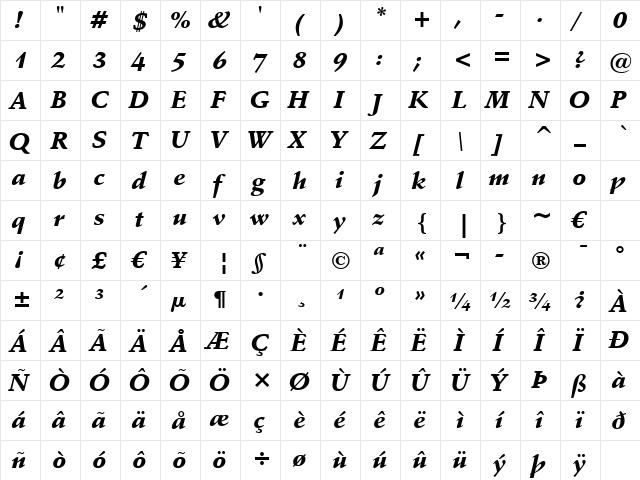
Schneidler Blk BT Black Italic Font Preview
Schneidler Blk BT Black Italic
Schneidler Blk BT Black Italic Font Details
Design Context for Schneidler Blk BT Typeface
Schneidler Blk BT is a composed and adaptable typeface that performs quietly and consistently across a wide range of design contexts. The dynamic lean of this cut emphasises speed and emphasis in any layout.
Pro Tip: Try Schneidler Blk BT for annotation and caption copy alongside an upright companion — the contrast in angle creates a dynamic but ordered typographic system.